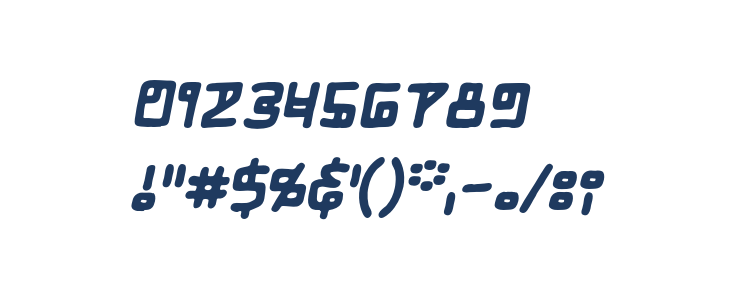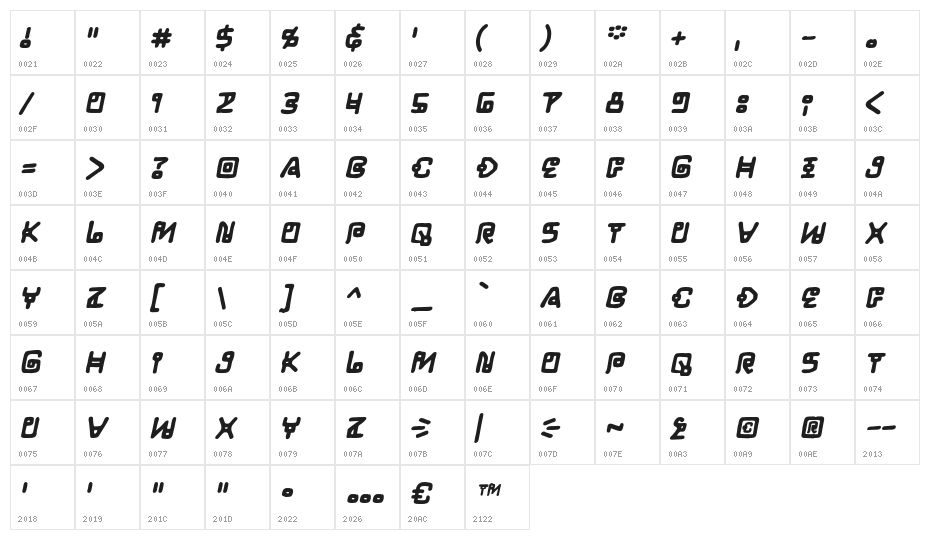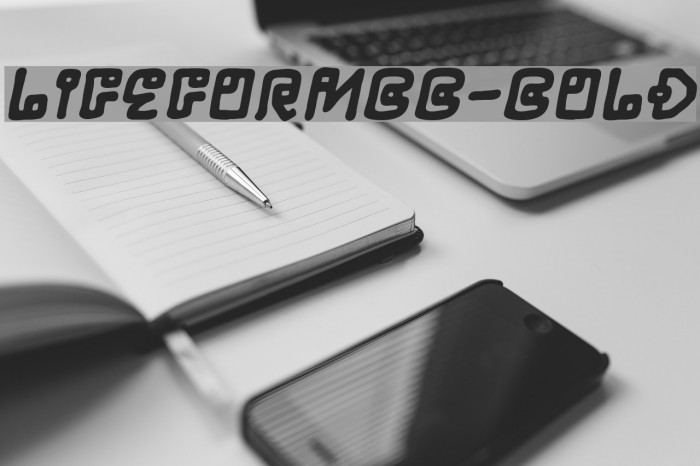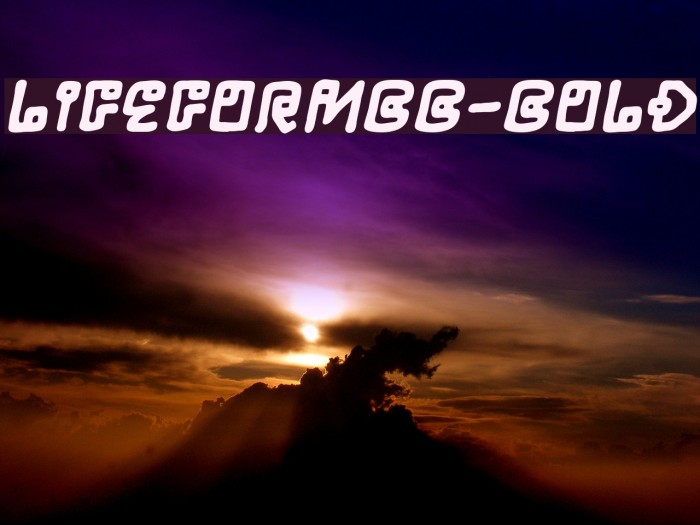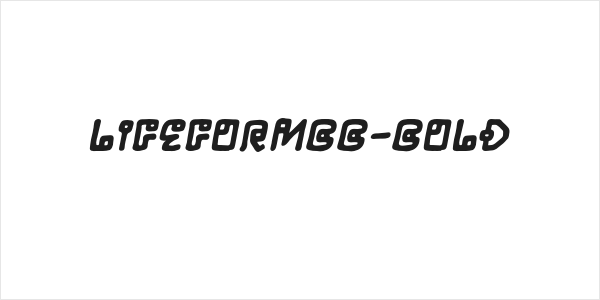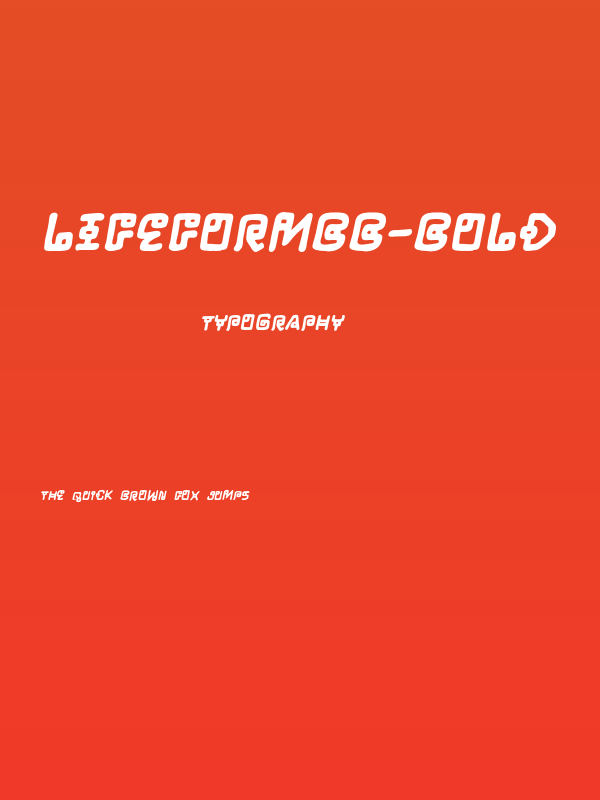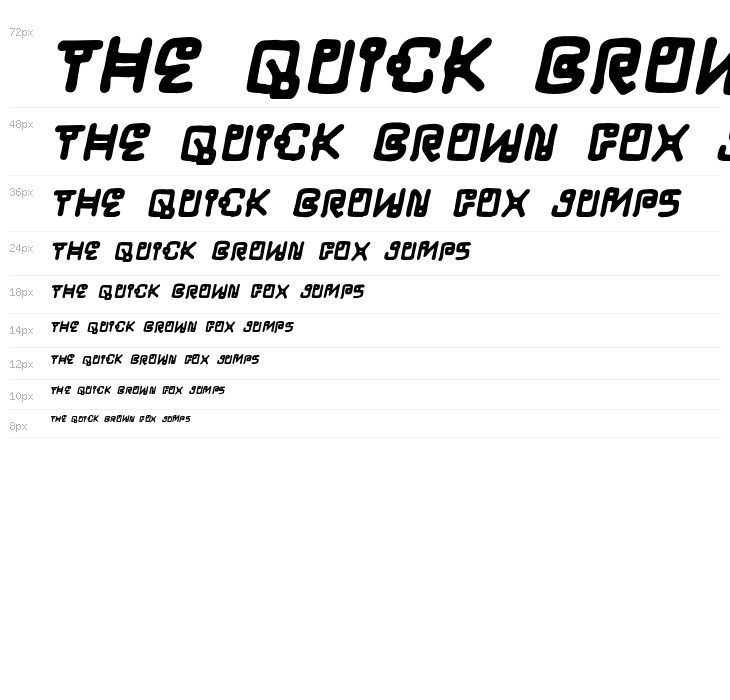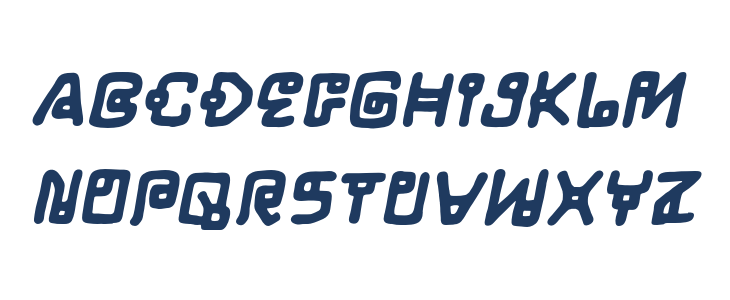
LifeFormBB-Bold Font
LifeFormBB-Bold Description
This font features a bold and playful design with a futuristic and slightly retro aesthetic. The characters are rounded and thick, with a consistent stroke width that gives it a strong presence. The unique shapes and curves of each letter create a sense of movement and energy, making it stand out in any design. The font includes both uppercase and lowercase letters, numbers, and a variety of special characters, all maintaining the same bold style. Its distinctive look is perfect for projects that require a modern and eye-catching typeface.
| Proposed Projects | Ideal for sci-fi themed posters, video game graphics, branding for tech companies, and any project needing a modern, standout typeface. |